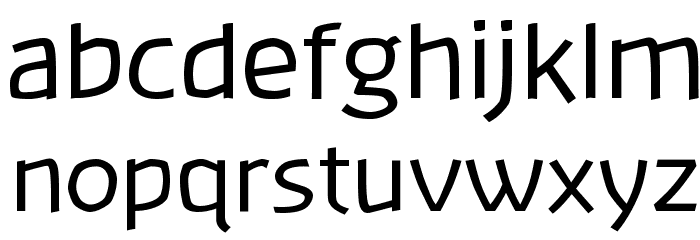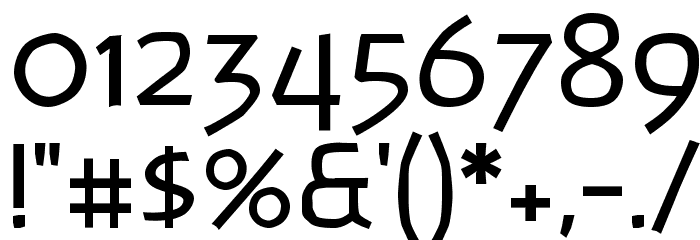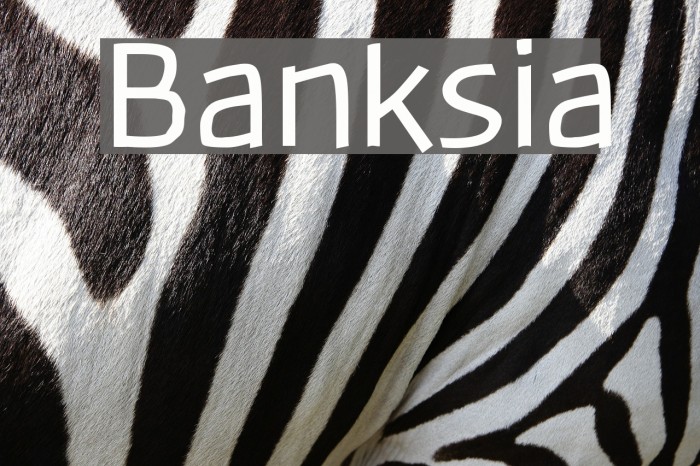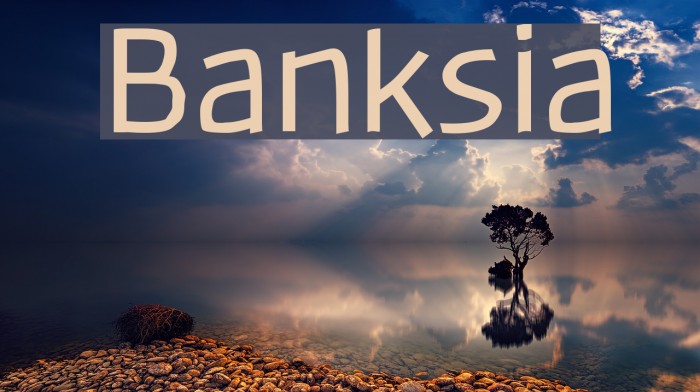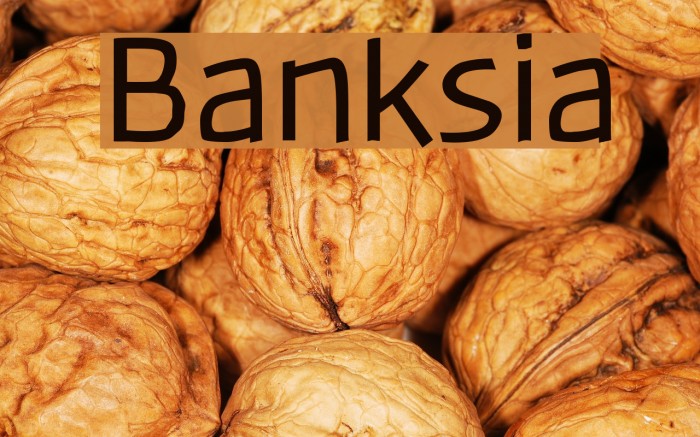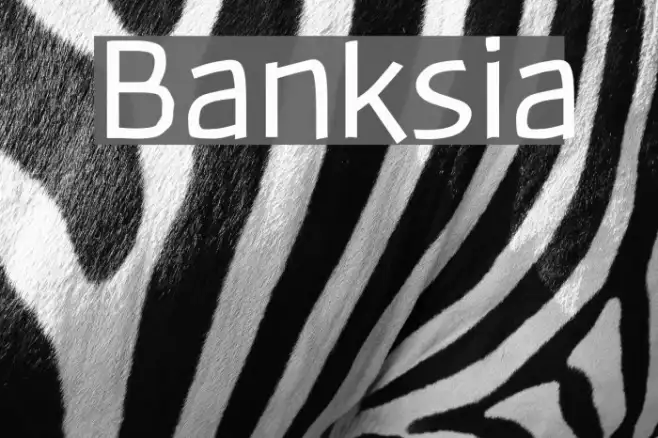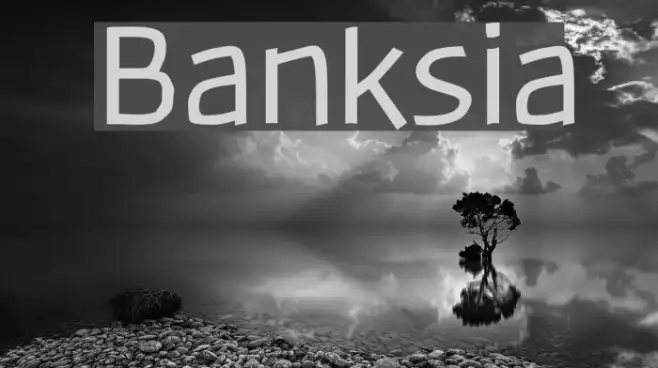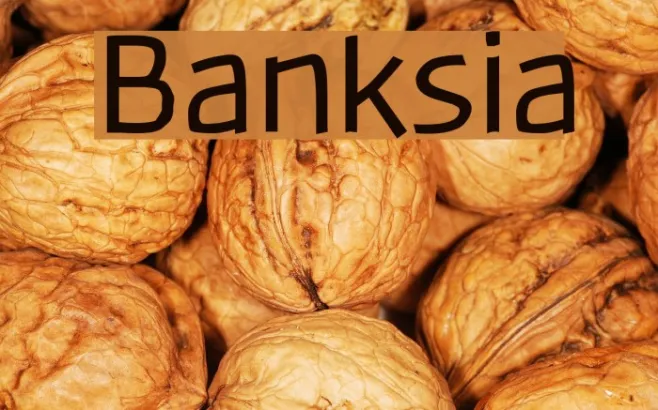
Banksia Font
This font features a modern and clean design with a slightly geometric structure. The characters are well-balanced with a subtle curvature that adds a touch of softness to the overall appearance. The uppercase letters are bold and assertive, while the lowercase letters maintain a friendly and approachable feel. The numerals are consistent with the overall style, providing clarity and readability. Special characters are distinct and harmonize well with the alphabetic characters, making this font versatile for various applications.
A modern, clean font with a geometric and slightly curved design.